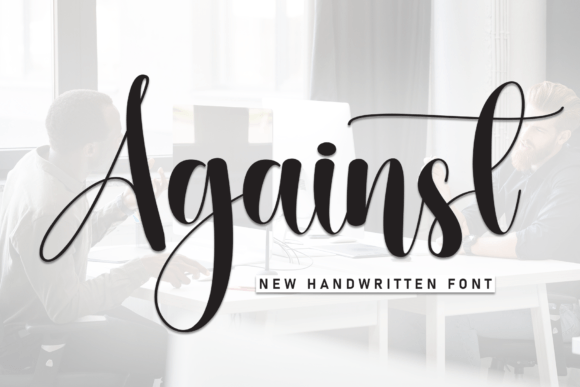
The Joy of Handwritten Fonts: Discovering Against
I’ll never forget the time I was working on a project for a client’s birthday party invitation. I had all the design elements in place – the colors, the graphics, the overall aesthetic – but something was missing. The font I had chosen just wasn’t doing it for me. It felt stiff, formal, and completely lacking in personality. That’s when I stumbled upon Against, a charming handwritten font that completely transformed the design.
With its smooth, flowing strokes and playful curves, Against brought a sense of whimsy to the invitation that perfectly captured the tone of the party. It was like a breath of fresh air, and I knew right then and there that I had to share it with the world.
An Honest Review of Against
• ✨ Warm and inviting: Against exudes a sense of warmth and friendliness that’s perfect for designs that need a personal touch.
• ✅ Highly legible: Despite its playful curves, Against is incredibly easy to read, making it perfect for body text and headings.
• 💫 Versatile: Against works beautifully on a wide range of design materials, from invitations and packaging to social media graphics and more.
While Against is an amazing font, it’s not without its quirks. For example:
• 🤔 Limited use in very formal designs: Against is a highly informal font, so it may not be the best choice for very formal designs, such as corporate reports or academic papers.
• ⚠️ Some OpenType feature limitations: While Against supports OpenType features, some advanced features may not work in all design applications.
The Story Behind Against
While the origins of Against are shrouded in mystery, it’s said that the font was inspired by the charming handwritten notes of a young artist. With a passion for typography and a love for whimsical designs, the creator of Against set out to craft a font that would bring joy and delight to designers and their clients. And with its smooth, flowing strokes and playful curves, Against has certainly achieved that goal.
Q: What type of designs is Against best suited for?
A: Against is perfect for designs that need a personal touch, such as invitations, packaging, social media graphics, and more.
Q: Is Against a difficult font to read?
A: No, Against is highly legible, making it perfect for body text and headings.
Q: Does Against support OpenType features?
A: Yes, Against supports OpenType features, including stylistic alternates, glyphs, and more.